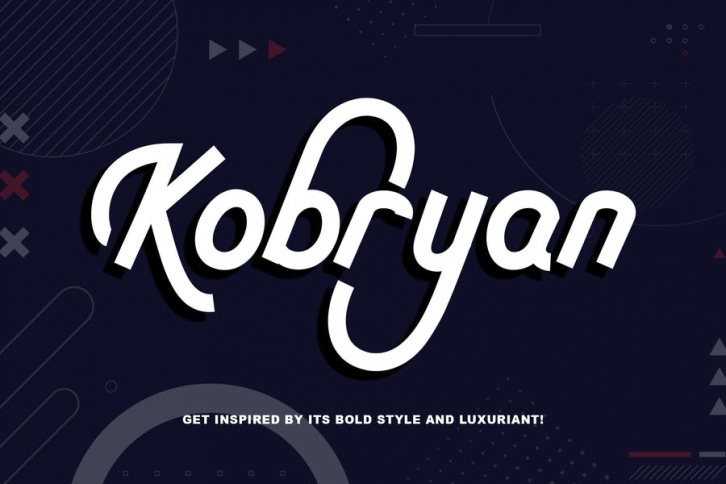
Kobryan is a bold script typeface and is uniquely crafted to give your designs a bold monoline appeal.
This font is PUA encoded which means you can access all of the amazing glyphs and swashes with ease! It also features a wealth of special features including swash glyphs and ligatures.
- Support multilingual; ä ö ü Ä Ö Ü ß ¿ ¡
- Numerals & Punctuation
- lowercase and uppercase letters
- Swash & ligature